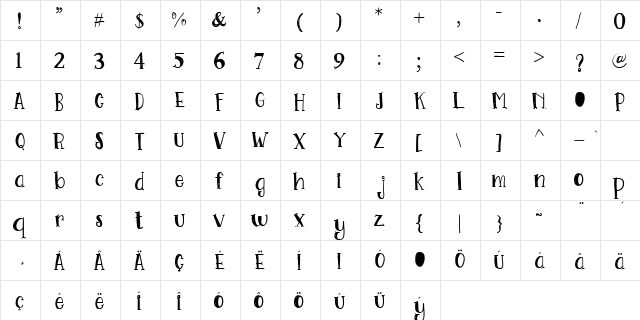
Go Doodling Font Go doodling
Design Context for Go Doodling Font Typeface
Go Doodling Font is a composed and adaptable typeface that performs quietly and consistently across a wide range of design contexts.